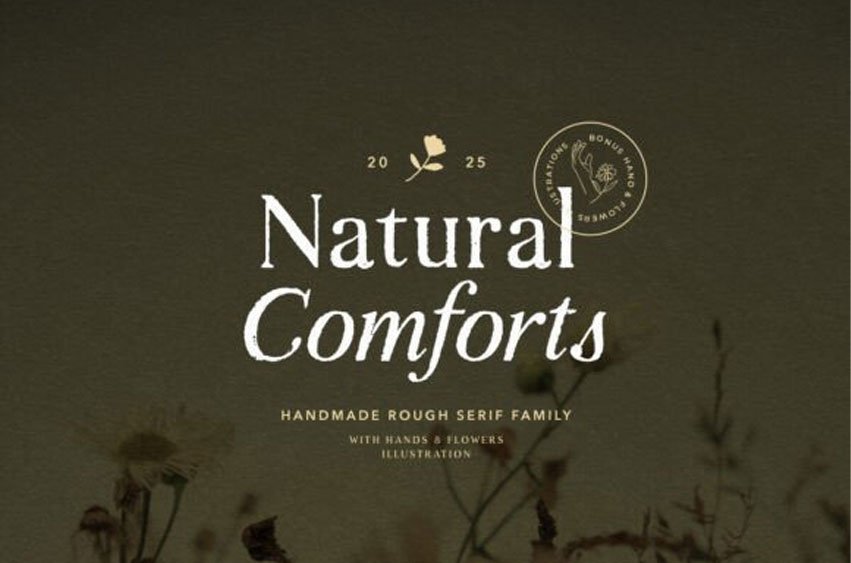
Natural Comforts Font is a hand-lettered serif typeface that features illustrations of hands and flowers. This font is perfect for various occasions, such as quotes, posters, branding, and wedding invitations.
Additionally, it comes with bonus illustrations in font format, allowing you to create your own beautiful logos using any design software. Natural Comforts also supports multiple languages!